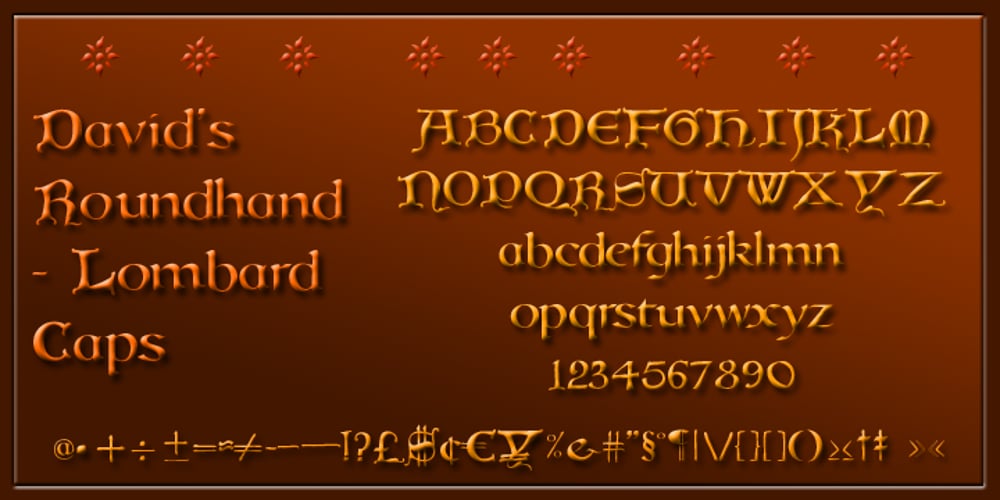
Davids Roundhand Font Family was designed by David Kettlewell and published by New Renaissance Fonts. Davids Roundhand contains 2 styles and family package options. A very harmonic rendering of the classic late-mediaeval round hand, provided here with a choice of two kind of capitals, Lombardic and Round. Usable in all kinds of contexts, both historic and modern.